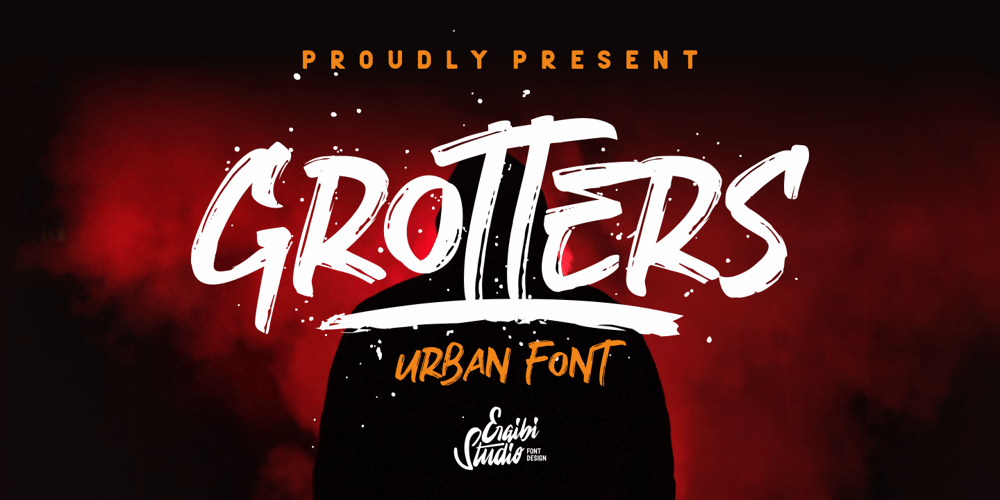
Grotters Font Family was designed by Riyadh Rahman and published by Ergibi Studio. Grotters contains 2 styles and family package options. Grotters is a supercharged, urban styled font, with extra attention to quick strokes and sharp details, Grotters contains uppercase, lowercase and ligature. Grotters is ideal for logos, apparel, t-shirts, hoodies, quotes, product packaging, or anything that needs a typographic turbo-boost and you’ll get a unique swash to accompany the font.What’s Included:Grotters Regular – The standard version of the font. Perfect for titles and logos.Grotters Swash – cool underline under your text or a splash of paint? This font set has you covered. Type any letter a-z using this font, and you’ll get a unique swash to accompany the font and extra brushLanguage Support – We’ve added in a great deal of extra characters to support many different languages.Commercial/Extended License – This is in your design arsenal for life! Use on end products for sale is permitted with the standard license.If there is a problem, question, or anything about my fonts, don’t hesitate to ask!Big Thanks Ergibi Studio